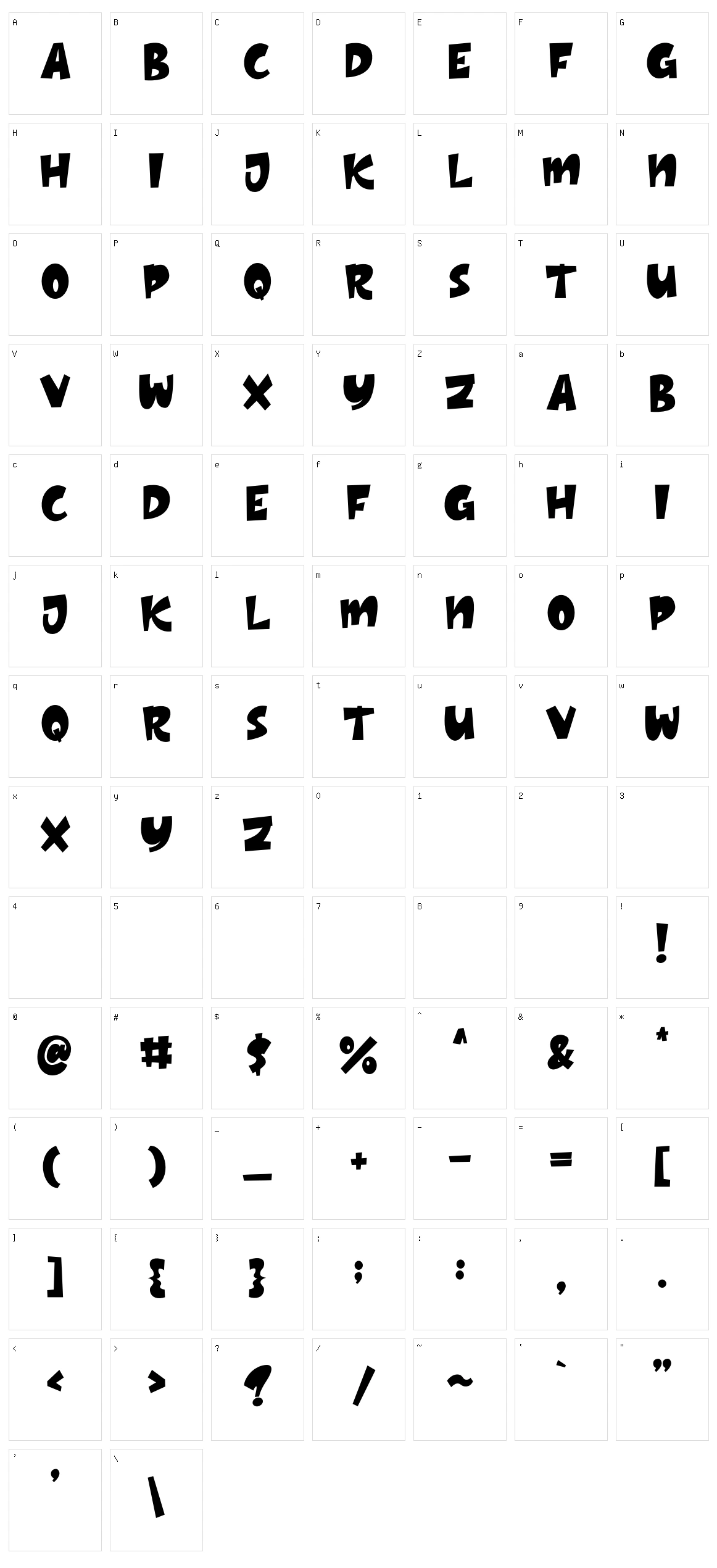
The free font Thick is carefully designed by Sarah Robbaniyyah, showcasing a thoughtful balance of creativity and usability and falls under the Cartoon font style. When you download the ZIP file, it contains only 9.76 KB of font files, making it lightweight and quick to download. Please review the license details below to understand permitted usage and distribution rights. If license information is not available, we recommend using this font for personal projects only or contacting the author directly for commercial usage permissions.